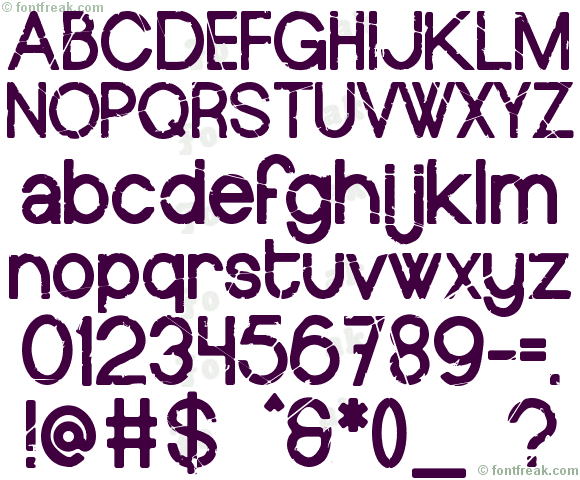
Europe Underground Worn
About Europe Underground Worn
The Europe Underground Worn font, designed by Mans Greback, falls into the display category with a unique and edgy aesthetic. This typeface features a distressed, worn appearance that gives it a rustic charm, perfect for projects seeking a vintage or retro feel. The strokes exhibit a consistent weight, with subtle variations that add character and depth. The spacing between the letters is well-balanced, ensuring readability while maintaining its distinctive style. The decorative elements, including irregular edges and a slightly uneven texture, evoke the essence of an underground atmosphere, making it an intriguing choice for various design applications.
This font is ideal for a range of creative projects. It works exceptionally well for music event posters, where its gritty vibe can capture the spirit of live performances. Additionally, Europe Underground Worn is perfect for urban-themed restaurant menus, adding a touch of authenticity to the dining experience. Graphic designers can utilize this font for branding materials that aim to convey a sense of history or nostalgia. It is also suitable for social media graphics aimed at attracting attention, thanks to its bold and eye-catching presence. Content creators looking to spice up their blogs or websites will find this font adds a unique flair.
Target audiences for this font include graphic designers, small business owners, and content creators who appreciate a vintage aesthetic. The Europe Underground Worn font free download makes it accessible for anyone looking to enhance their designs without breaking the bank. Its standout quality lies in its ability to blend contemporary design with a sense of nostalgia, making it a versatile choice for various creative endeavors. Whether you're crafting an event flyer or redesigning your brand's identity, this font is sure to make a lasting impression.